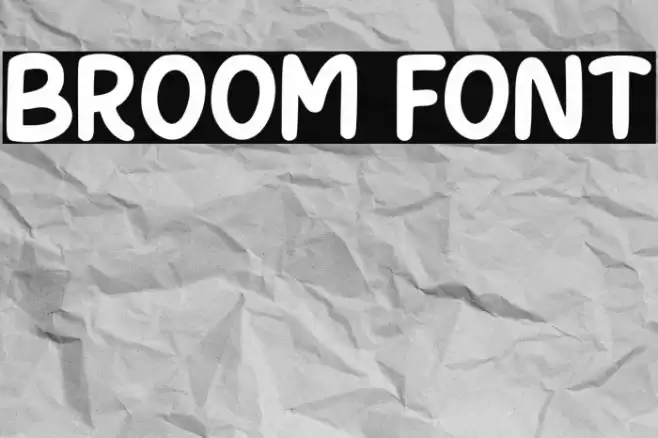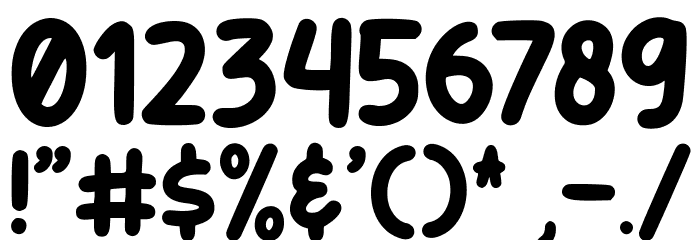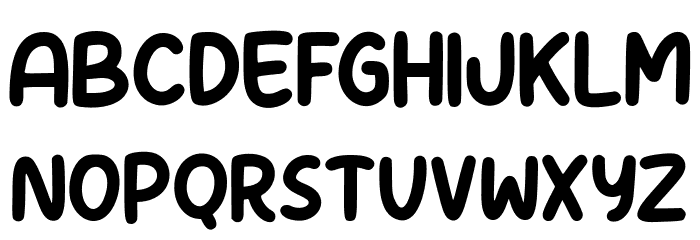
Broom Font
Broom Description
This playful and bold font features rounded, thick strokes that give it a friendly and approachable appearance. The characters are uniformly wide, with a consistent weight that maintains readability across different sizes. The rounded edges and smooth curves contribute to its casual and informal style, making it suitable for creative and fun projects. The numbers and special characters are designed to match the playful aesthetic, ensuring a cohesive look across all text elements. This font's unique style makes it ideal for projects that require a touch of whimsy and personality.
A playful, bold font with rounded edges and thick strokes, perfect for creative projects from Comic fonts.
- Proposed Projects: Children's books, playful branding, casual invitations, and creative posters.
- Overall Style: Playful, Casual